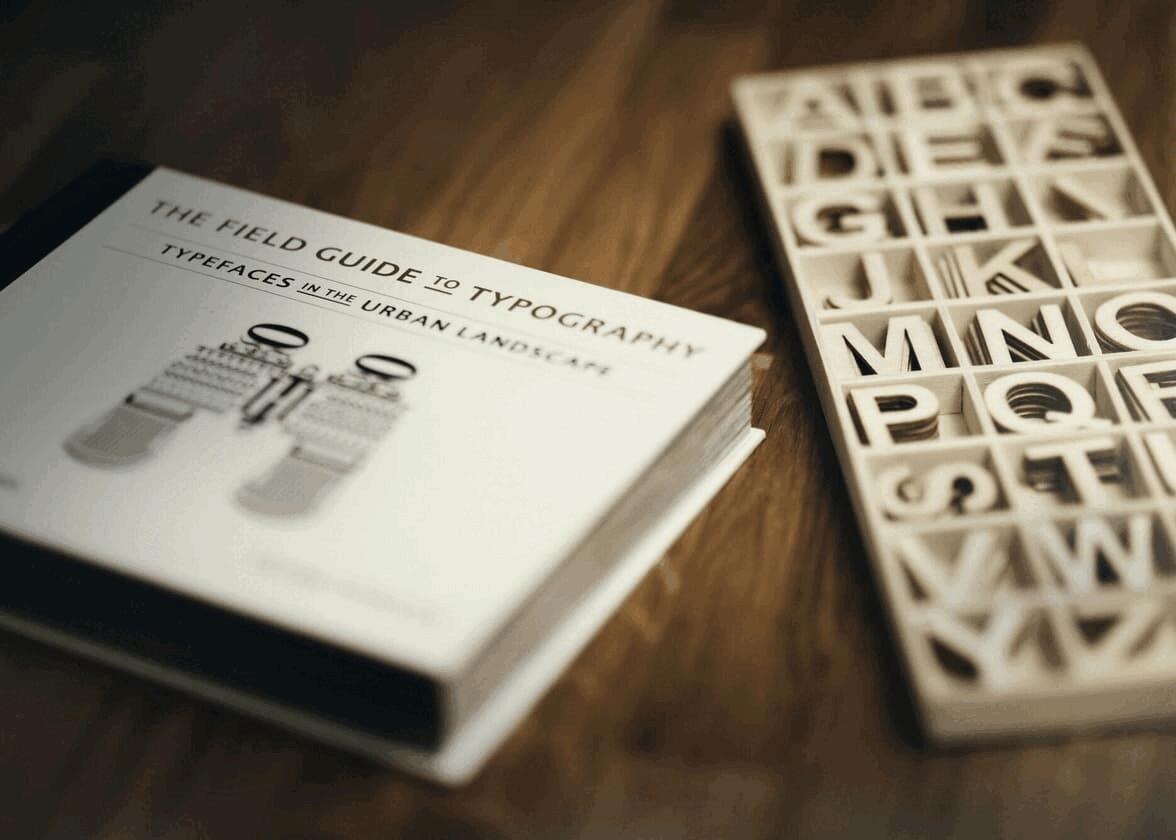
Different Types of Typography and Fonts for Logo Design
Typography plays a crucial role in the world of logo design. It's the art and technique of arranging type to make written language legible, readable, and visually appealing. When done right, typography can elevate a logo, creating a lasting impression on customers and helping a brand stand out from the crowd. In this comprehensive guide, we will explore different types of typography and fonts for logo design, ensuring you have all the tools you need to make an informed decision when choosing the perfect font for your logo.
Before diving into the various types of typography and fonts, it's essential to understand some key terms and concepts.
What do terms like Typeface mean when compared to Typefont?
While these terms are often used interchangeably, they have distinct meanings. A typeface is a set of characters, including letters, numbers, and symbols, that share a common design. A font is a specific style, weight, and size of a typeface.
When building a font, a typeface forms the crux of the design journey. Elements such as baseline, ascenders and descenders and serif are considered.
Understanding these terms will help you better appreciate the nuances of different typefaces and make more informed decisions when choosing fonts for your logo.
Are you wondering where does typography come to play?
Well, typography is considered to be an artform wherein the designer creates a particular typeface in an adaptable font format. There are several different categories of typography, each with its own unique characteristics and applications.
Here, we will discuss four main types: serif, sans-serif, script, and display.
Serif Typography
Serif typefaces are characterized by small lines, or serifs, at the ends of their strokes. They are often considered more traditional and formal, making them a popular choice for print media and established brands. Therefore, it is a classic choice of designers to use this type of font to showcase tradition and credibility. Some examples of well-known serif typefaces include Times New Roman, Garamond, and Georgia.
Serif Font Examples
Sans-Serif Typography
Sans-serif typefaces, as the name suggests, lack the small lines (serifs) found in serif typefaces. They are often seen as more modern and clean, making them a popular choice for digital media and contemporary brands. A logo created in Sans-serif has a modern yet aesthetic appeal. It works well with digital applications and websites. Some examples of well-known sans-serif typefaces include Helvetica, Arial, and Futura.
Sans-Serif Typography example
Sans-Serif Font Examples
Script Typography
Script typefaces are designed to mimic the look of handwriting, with connected letters and fluid strokes. They can range from casual and playful to elegant and luxurious. A logo designed in this typography plays the advantage of customization. It can make to be a memorable icon which creates stronger brand recall. Some examples of well-known script typefaces include Brush Script, Lobster, and Allura.
Script Typography example
Script Font Examples
Display Typography
Display typefaces are designed for use at large sizes and in attention-grabbing contexts, such as headlines, posters, and logos. They often have unique, stylized features that set them apart from other typefaces. A display typography comes with a limitation of adaptation especially when it comes designing logos. It may not work well on digital platforms but can be used to create strong visual impact. Some examples of well-known display typefaces include Cooper Black, Impact, and Bebas Neue.
Display Typography examples
Display Font Examples
Now that we have learned about the types of fonts, how doyou know which one works for your brand?
Align with Your Brand's Personality
The font you choose should reflect your brand's personality and values. For example, a serif typeface might be suitable for a law firm or financial institution, while a script font could be a good fit for a wedding planner or boutique. Consider your brand's core attributes and how the font can help convey those qualities.
Consider Your Target Audience
Think about the demographics and preferences of your target audience when choosing a font. Certain fonts might appeal more to specific age groups, genders, or cultural backgrounds. Ensure that the font you select will resonate with your intended audience and help create a connection with them.
Ensure Legibility and Versatility
A logo needs to be legible and versatile, working well across various platforms and applications. Choose a font that is easy to read at different sizes and in different contexts, such as on a website, business card, or billboard. Additionally, consider how the font will look in both print and digital formats.